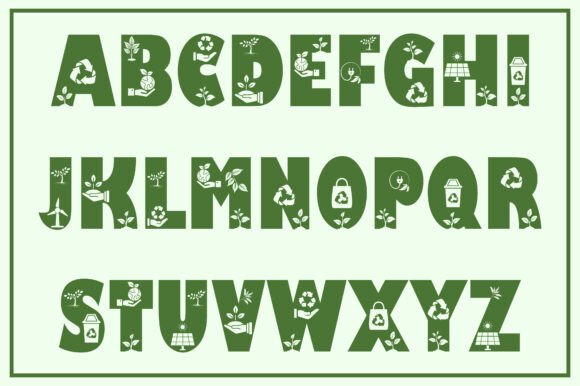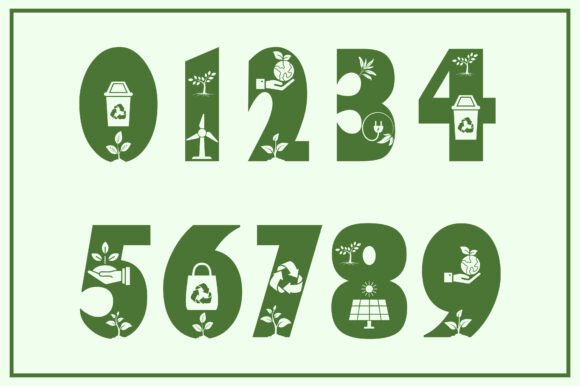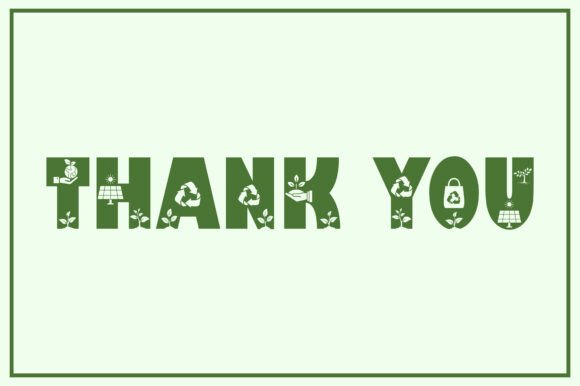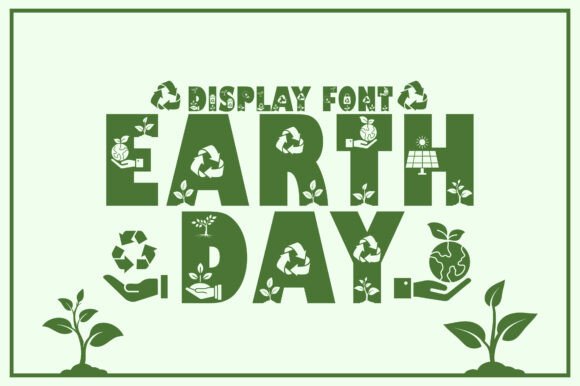
Introducing the Earth Day Font: A Fun and Dynamic Decorative Display Font
Are you looking for a unique and eco-friendly font to add a touch of personality to your designs and crafts? Look no further than the Earth Day Font! This fun and dynamic decorative display font is perfect for any design or crafty idea, and is sure to bring a smile to your face and a touch of whimsy to your projects.
What is the Earth Day Font?
The Earth Day Font is a specially designed font that celebrates the spirit of Earth Day and the importance of taking care of our planet. This font is not just a collection of letters and symbols, but a way to express your creativity and showcase your love for the environment. With its playful and energetic vibe, the Earth Day Font is sure to make your designs and crafts stand out from the crowd.
Features of the Earth Day Font
The Earth Day Font is a decorative display font that comes with a range of features that make it perfect for designers and crafters. Some of its key features include:
- Unique and quirky design: The Earth Day Font has a one-of-a-kind design that is sure to grab attention and add a touch of personality to your projects.
- Fun and dynamic: This font is perfect for designs and crafts that require a playful and energetic vibe.
- Eco-friendly: The Earth Day Font is designed with the environment in mind, making it perfect for projects that promote sustainability and eco-friendliness.
Uses of the Earth Day Font
The Earth Day Font is a versatile font that can be used for a wide range of design and craft projects. Some of the ways you can use this font include:
- Earth Day posters and flyers: Create eye-catching posters and flyers that promote Earth Day and the importance of taking care of our planet.
- Eco-friendly branding: Use the Earth Day Font to create eco-friendly branding materials such as logos, business cards, and letterheads.
- Craft projects: Add a touch of personality to your craft projects such as scrapbooking, card making, and DIY home decor.
- Social media graphics: Use the Earth Day Font to create engaging social media graphics that promote sustainability and eco-friendliness.
Why Choose the Earth Day Font?
There are many reasons why you should choose the Earth Day Font for your design and craft projects. Some of the benefits of using this font include:
- Stand out from the crowd: The Earth Day Font is a unique and quirky font that is sure to make your designs and crafts stand out from the crowd.
- Showcase your creativity: This font is a great way to express your creativity and showcase your love for the environment.
- Eco-friendly: The Earth Day Font is designed with the environment in mind, making it perfect for projects that promote sustainability and eco-friendliness.
| Font Name | Earth Day Font |
| Author | AvocadoSVG |